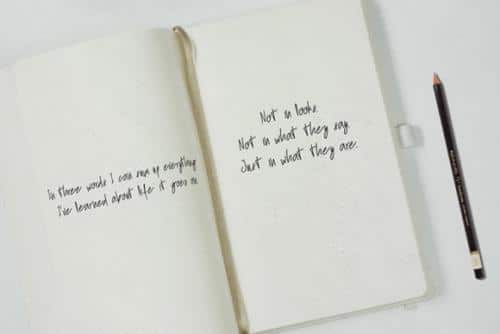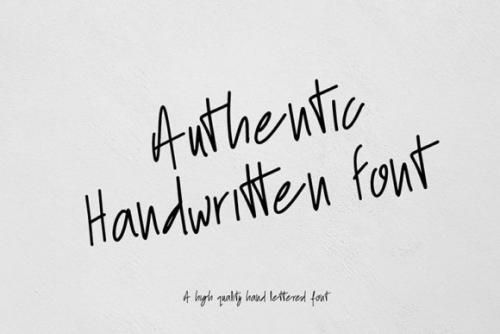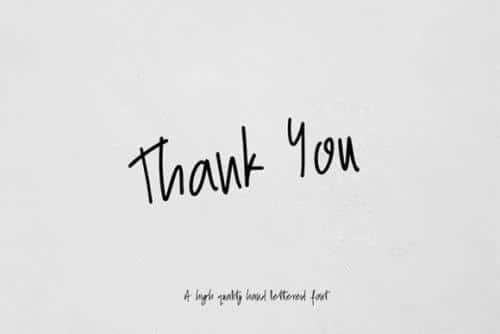
Blittar Rain Handwritten Font
Blittar Rain font with monolineBlittar Rain a full set of beautifull hand letters, numerals, a large range of punctuation and ligatures. Giving realistic hand-lettered style.
Hope this font is perfect for creating signature logos and watermarks for photography studio or wedding invitation, Lable, Logo, Magazine best for initial or branding logo signature.